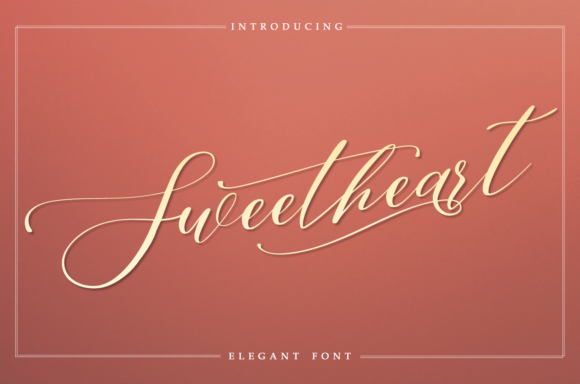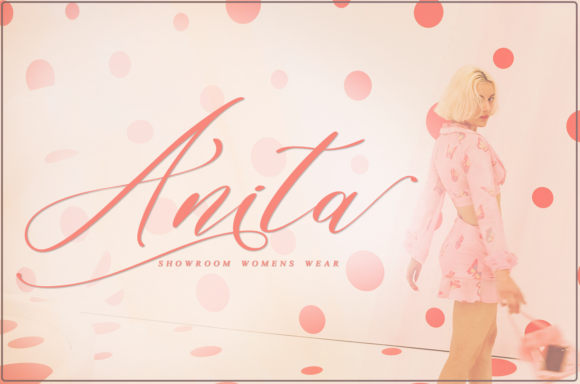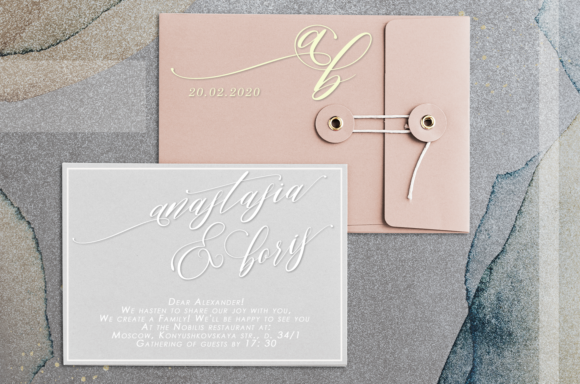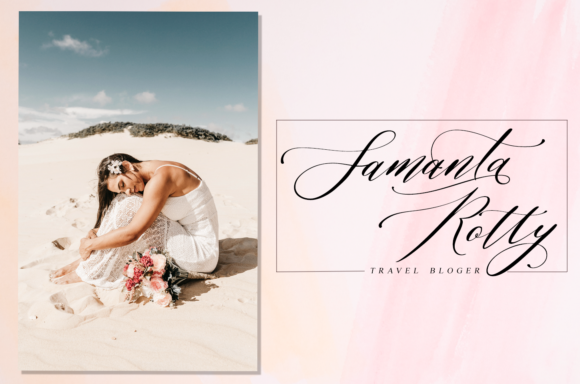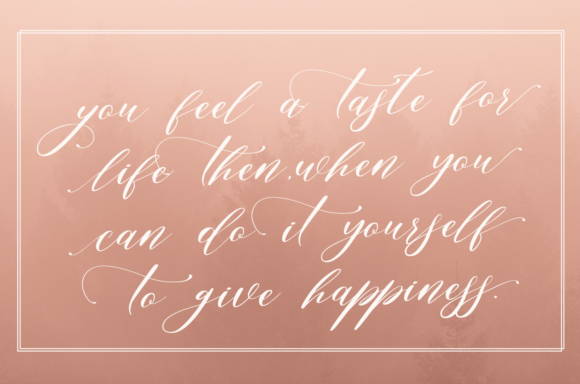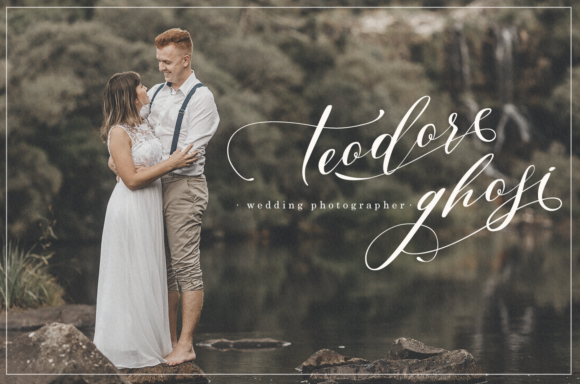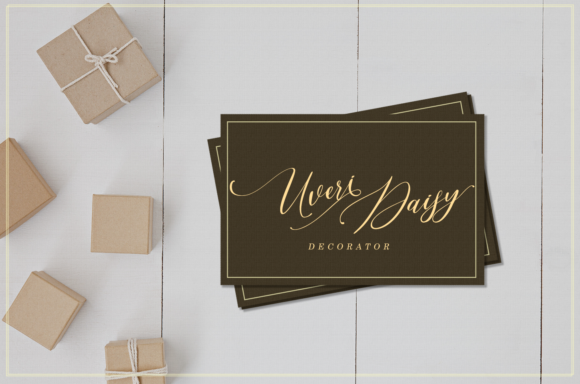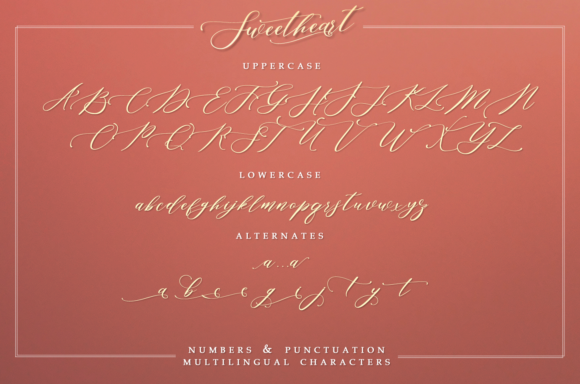
Sweetheart Font
About Sweetheart Font
Sweetheart is an incredibly lovely and romantic script that radiates charm. Ignite your creativity with this beautiful font, and turn any design idea into a true standout!